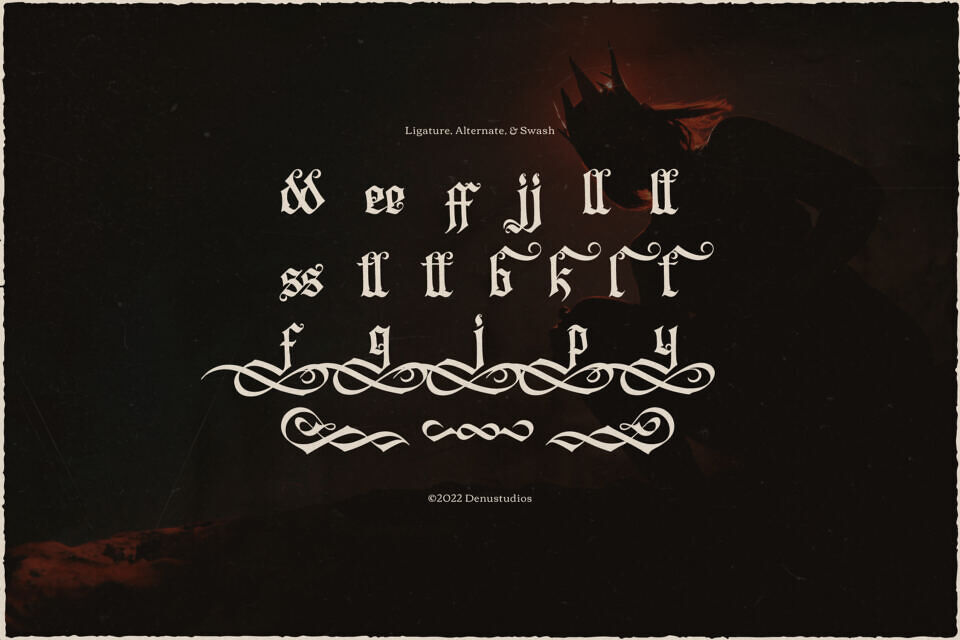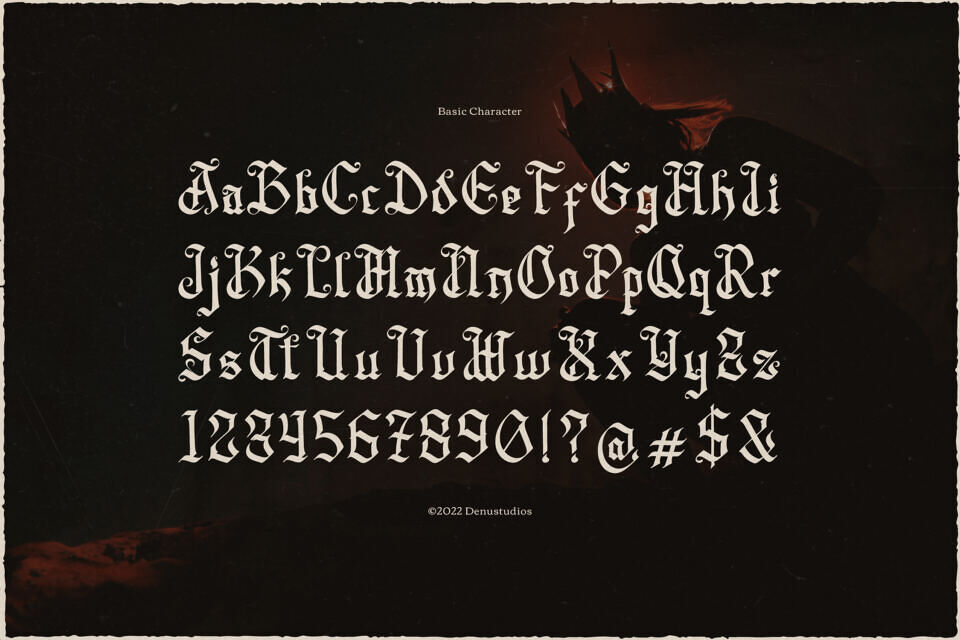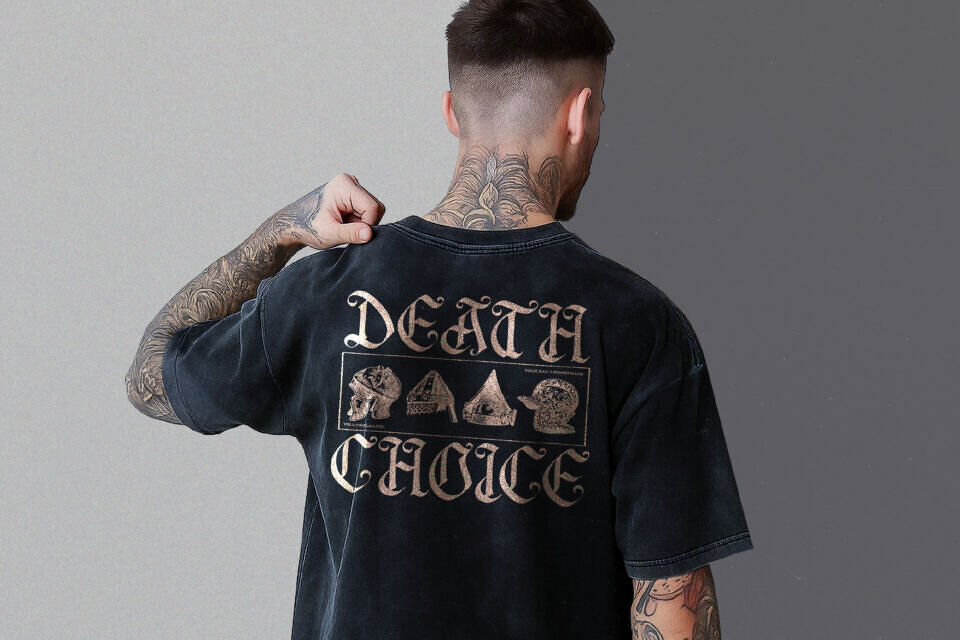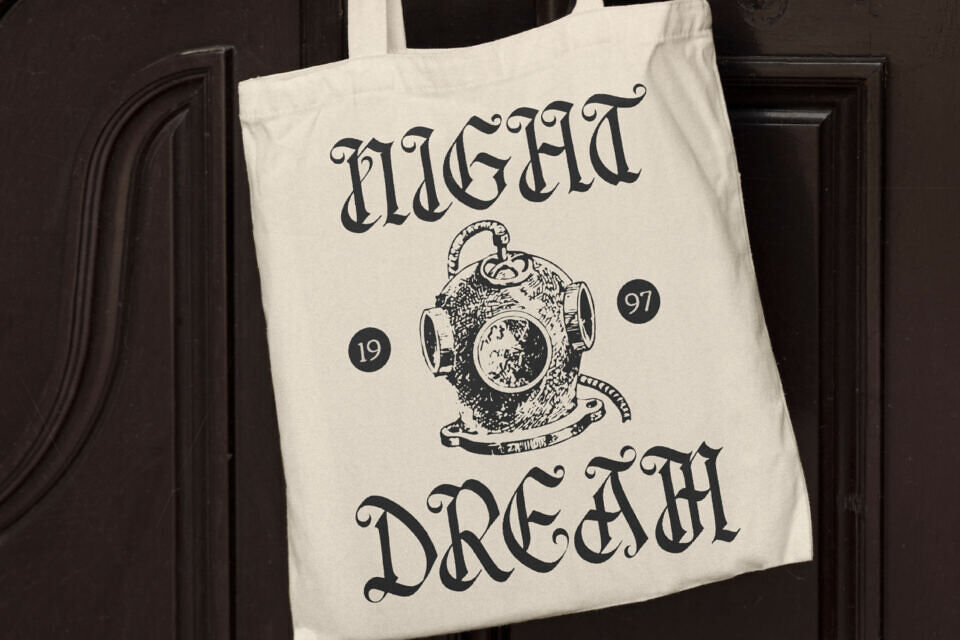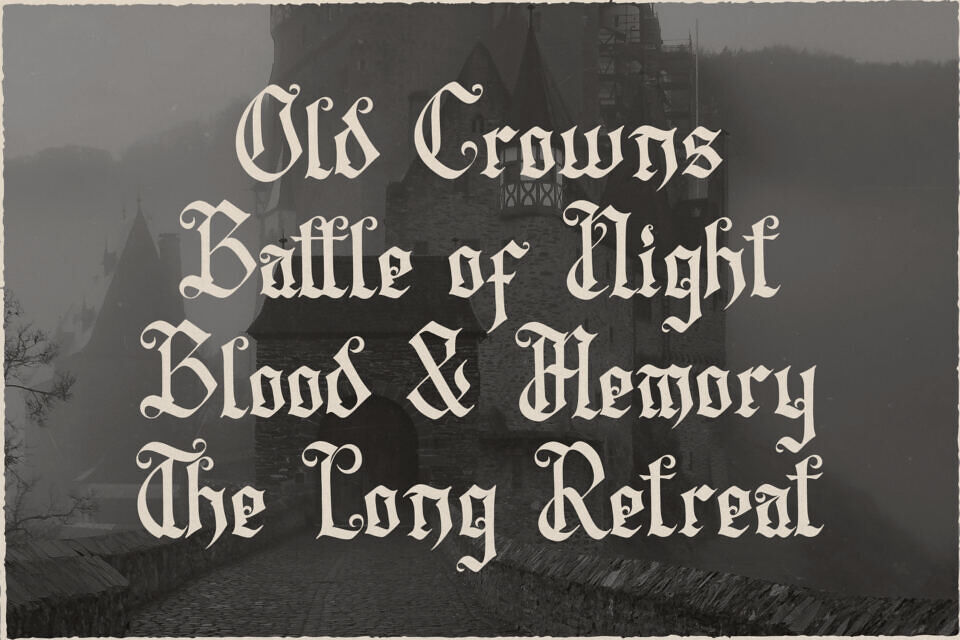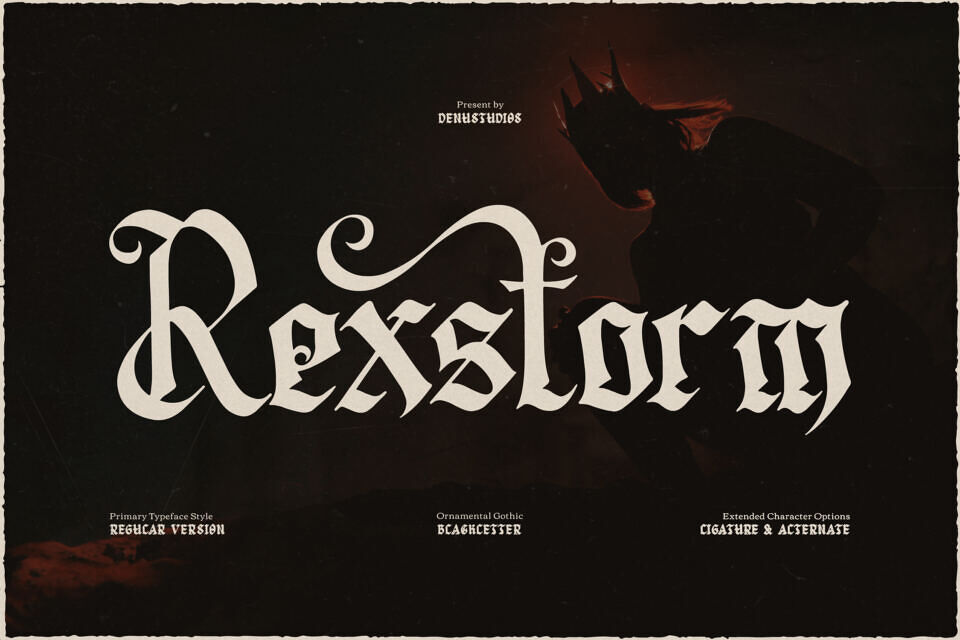
Rexstorm Font
Rexstorm font is a powerful blackletter typeface that fuses medieval gothic tradition with a sharp, modern ornamental edge.
This Rexstorm typeface features aggressive, angular strokes and intricate “flourished” terminals that make it an exceptional choice for heavy metal album art, edgy streetwear branding, and dark fantasy game titles. It provides a sense of authority and “rebellion,” perfect for projects that need to feel bold and visually arresting.